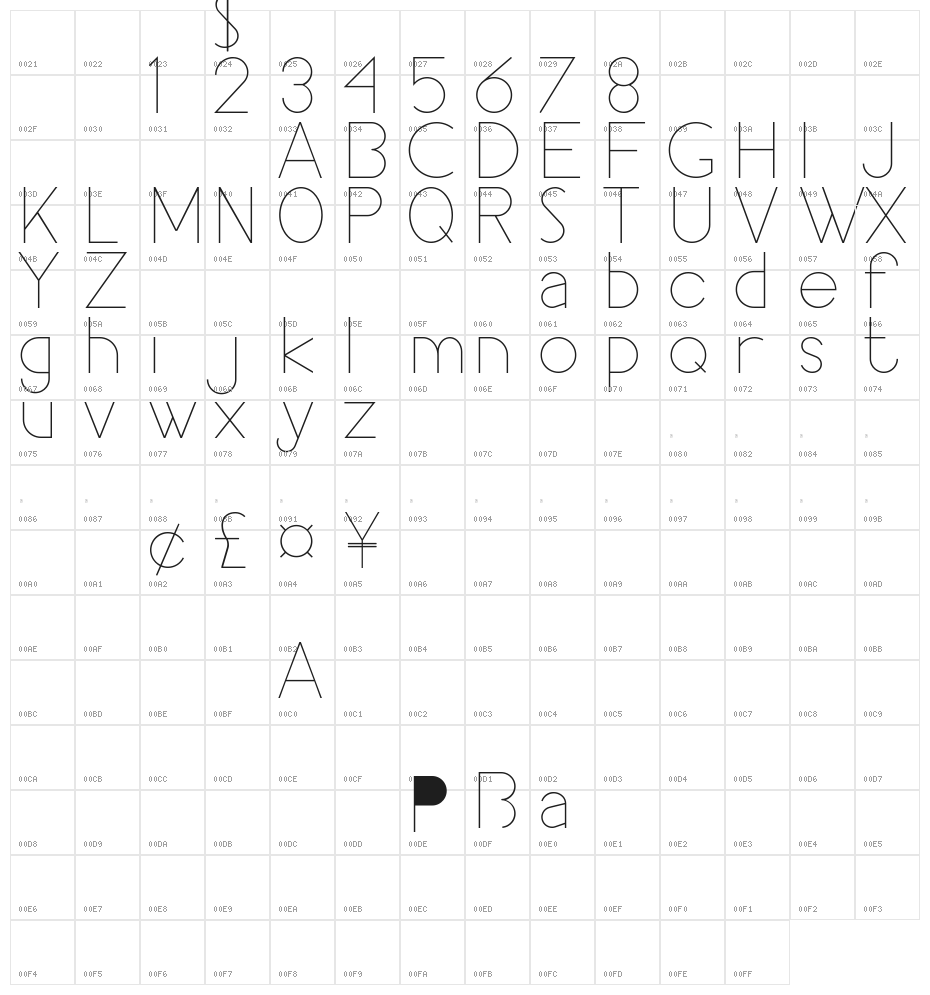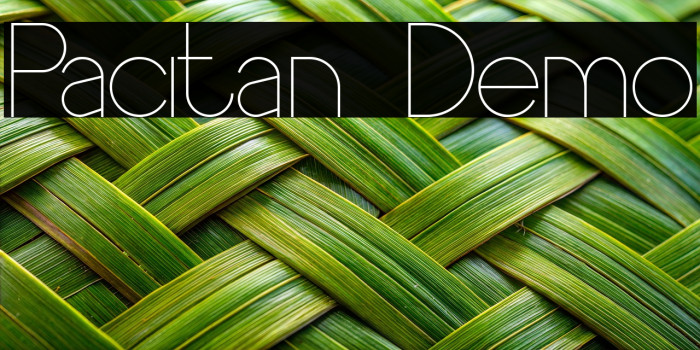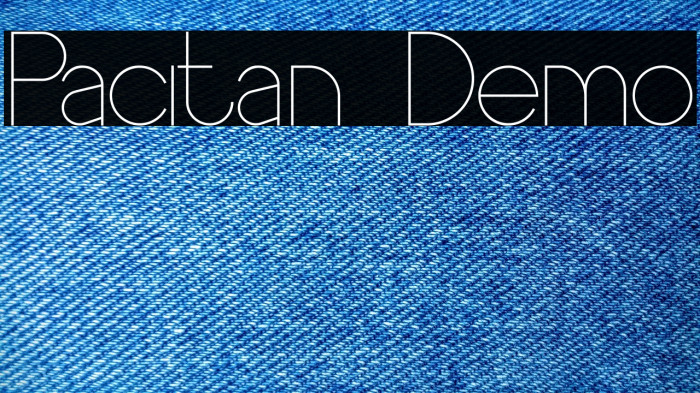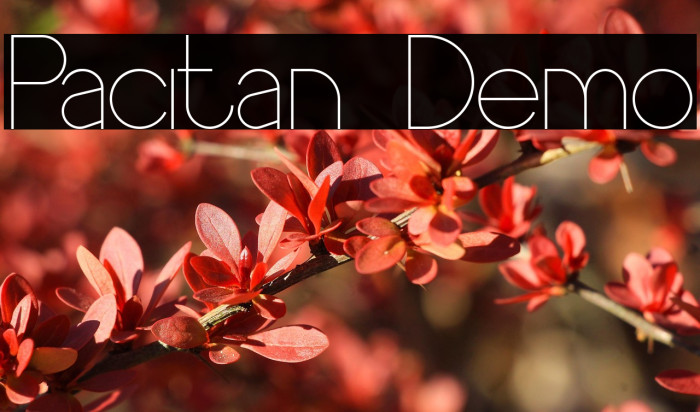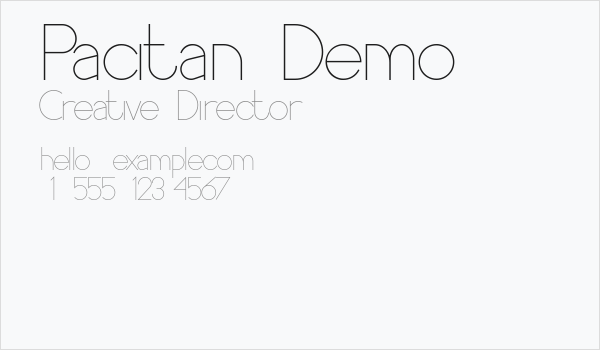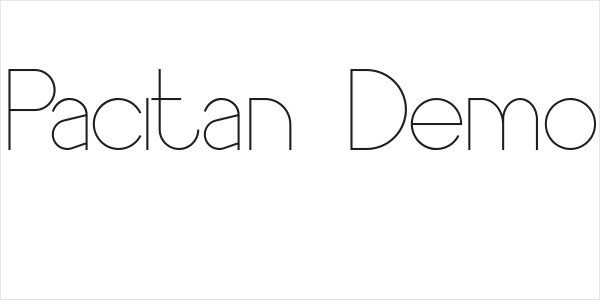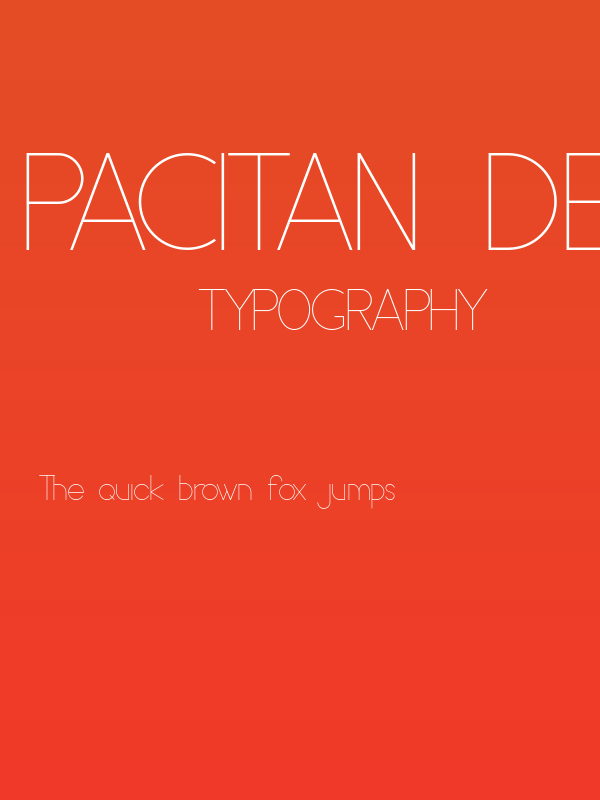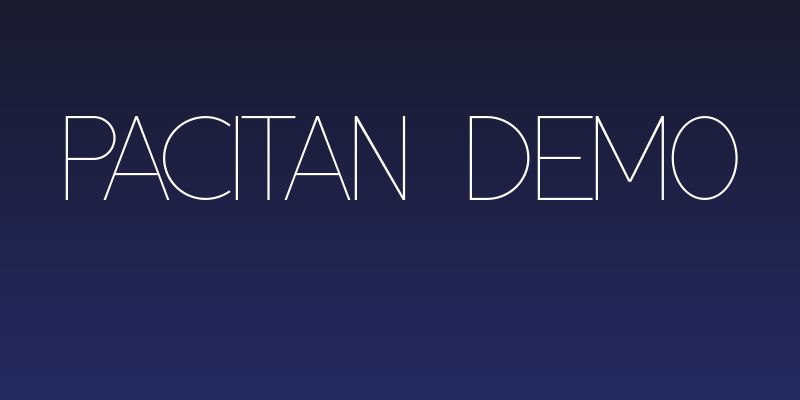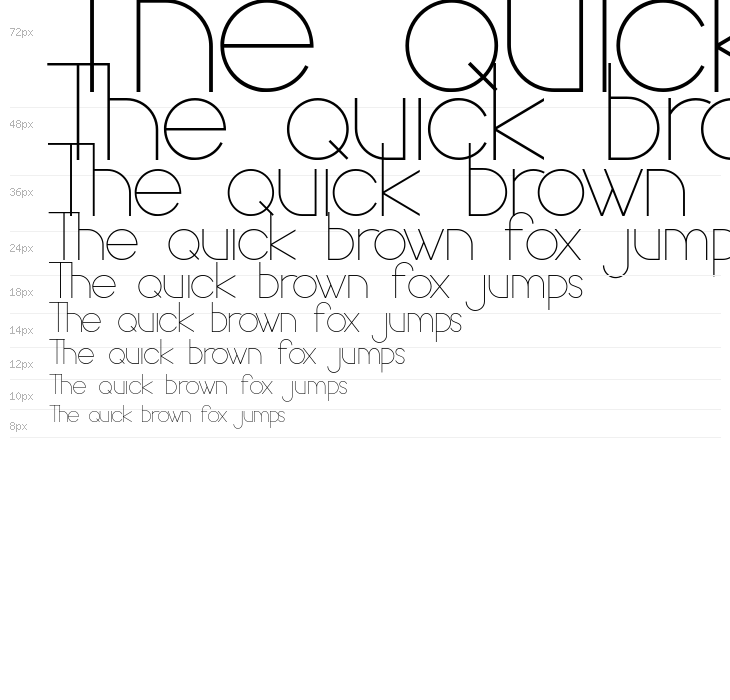
Pacitan Demo Font
Pacitan Demo Description
This font features a sleek, modern design with clean lines and a minimalist aesthetic. The characters are thin and elongated, creating an elegant and sophisticated look. The uppercase and lowercase letters maintain a consistent style, with a geometric influence that is evident in the uniformity of the shapes. The numbers are similarly styled, with a contemporary flair that complements the overall design. Special characters are included, maintaining the same thin and refined appearance. This font is ideal for projects that require a modern and stylish touch, offering a sense of elegance and clarity.